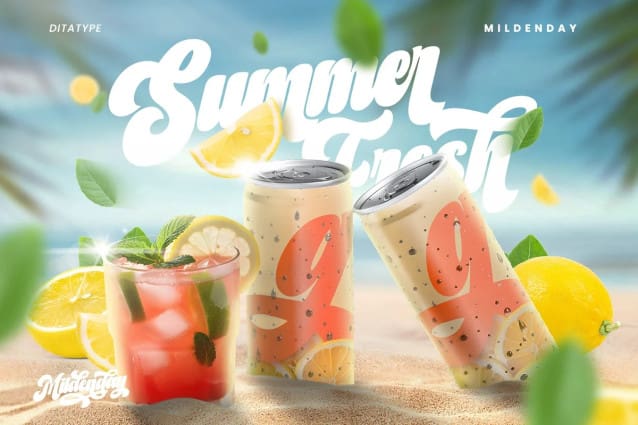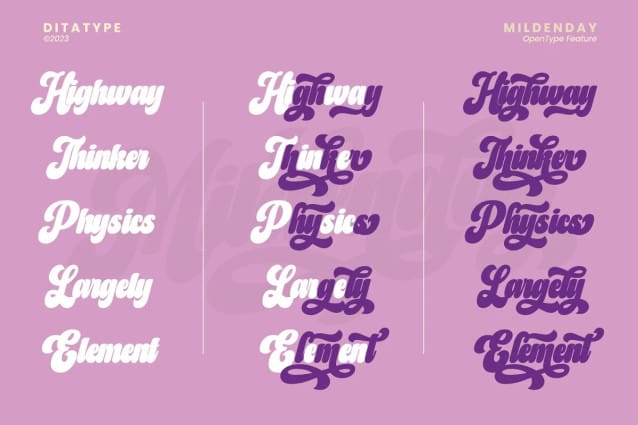
Mildenday Font
Mildenday Font is a captivating script font that marries boldness and elegance in perfect harmony. The bold weight of Mildenday ensures your text makes a strong and memorable impression. It exudes confidence and authority while maintaining legibility. The swing endings on certain letters provide a sense of fluidity and movement, injecting personality and energy into your text. These subtle, artistic details give Mildenday a captivating and individual character. Mildenday’s low contrast design gives it a modern and well-balanced appearance. In addition, you can also enjoy the features here.